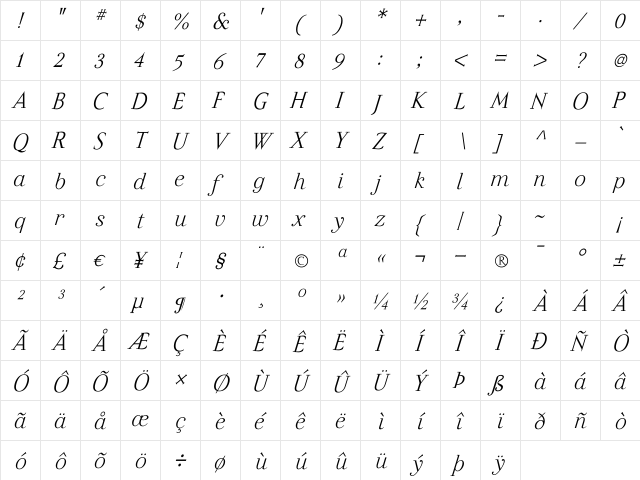
Felina SerifLight Italic Regular Font Preview
Design Context for Felina SerifLight Italic Typeface
Felina SerifLight Italic carries the refined structure of traditional serif typography, with bracketed terminals and considered proportions that communicate credibility and craft. The slanted form adds forward momentum and visual energy. Its slender proportions lend an understated elegance to any composition.